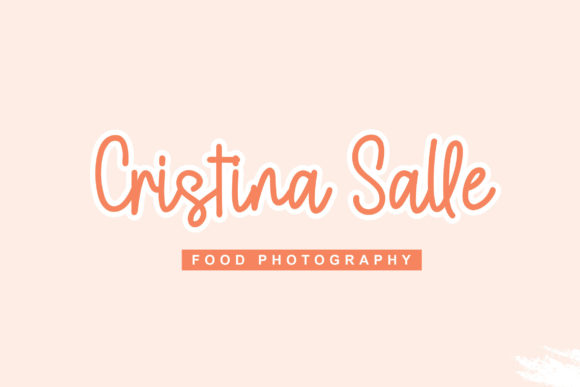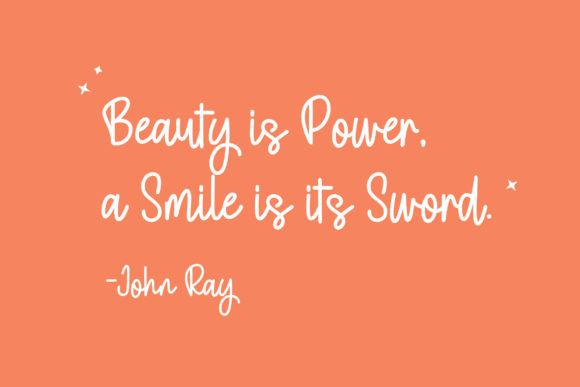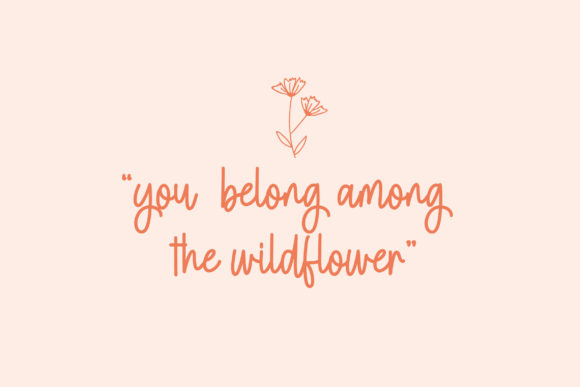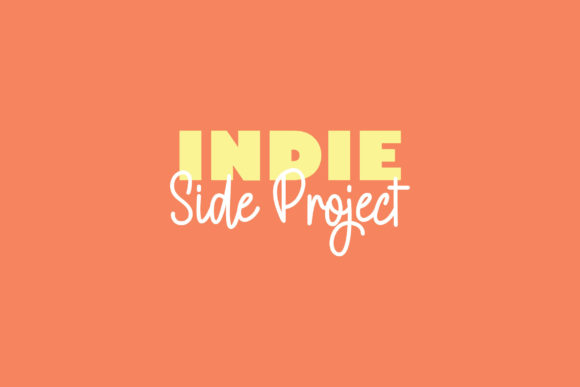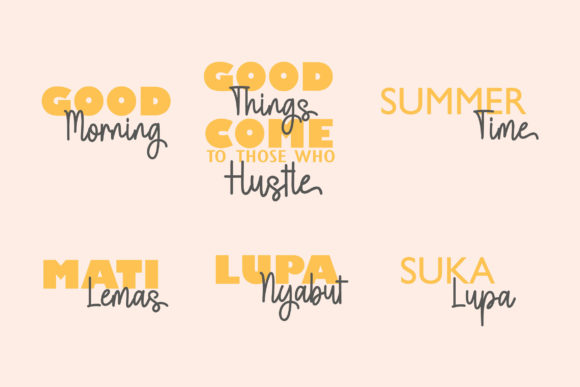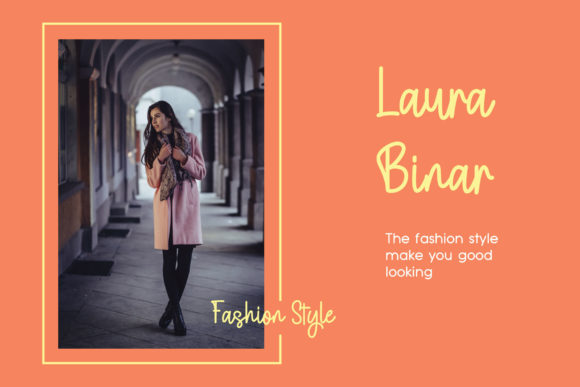
Unlock the Power of Whimsical Design with Beauty Ayes Font
As a designer, you’ve probably found yourself stuck in a creative rut, scrolling through font collections in search of the perfect touch to elevate your latest project. And then, it happens – you stumble upon a font that makes your heart skip a beat. For us, that moment came when we discovered the enchanting Beauty Ayes Font. This delicate script font is the perfect blend of elegance and sophistication, guaranteed to add a touch of magic to any design.
With its clean, thin, and smooth vibe, Beauty Ayes Font is an absolute game-changer for designers looking to create unique and captivating designs. Whether you’re working on a wedding invitation, a children’s book, or a social media campaign, this font is sure to impress. Its versatility and charm make it an invaluable addition to any design toolkit.
Key Features of Beauty Ayes Font
- Unique Characteristics: This font features a unique blend of elegance and sophistication, making it ideal for creating eye-catching headlines, titles, and other display text.
Designer Review: Beauty Ayes Font
Beauty Ayes Font is an eye-catching script font that adds a touch of elegance to any design. It’s perfect for creating invitations, wedding designs, or any project that needs a sophisticated feel. ✨ The font’s flowing lines and cursive style make it a great choice for adding a personal touch to your designs.
Some of the things that work well in Beauty Ayes Font include:
- Its versatility in being suitable for a wide range of projects
- The elegant feel it adds to any design
- Its ease of readability, despite its script nature
- Beauty Ayes Font may not be the best choice for projects that require a bold or dramatic font
- The font may not be suitable for text-heavy designs, as it can be quite busy
- It may require some adjustments to get the font to look its best, depending on the design
Overall, Beauty Ayes Font is a great choice for designers who want to add a touch of elegance and sophistication to their projects. With its unique style and versatility, it’s a great addition to any design library. ⚠️ Just be aware of its limitations and adjust your design accordingly.
The Beauty Ayes Font is suitable for various design projects, including:
- Beauty and wellness marketing materials
- Magazine and blog headlines